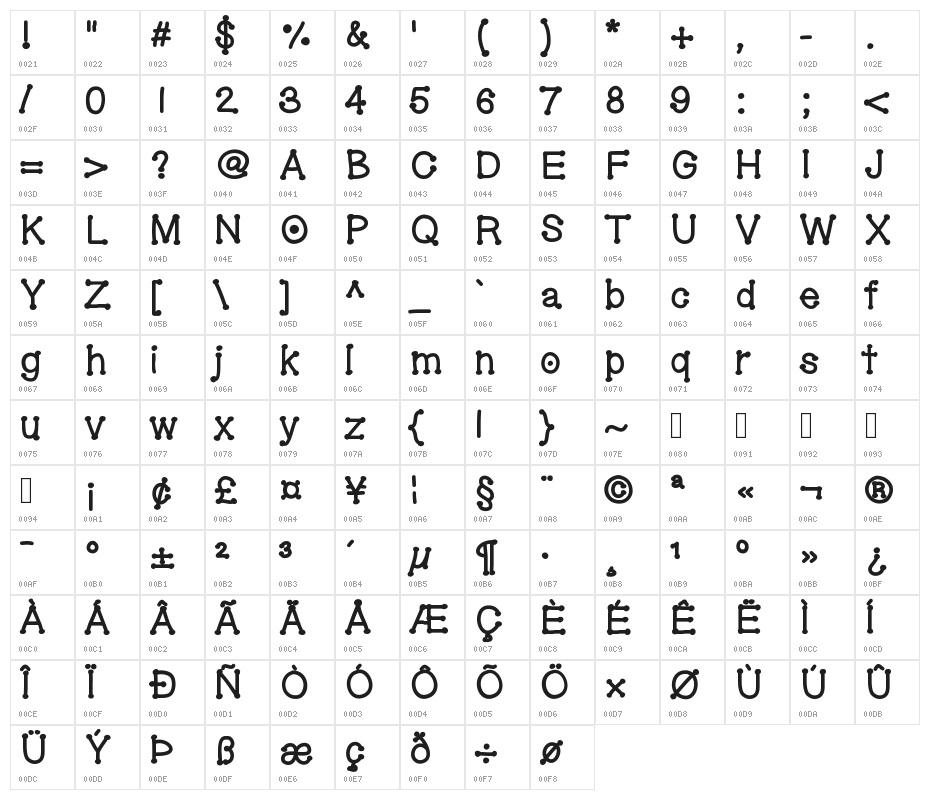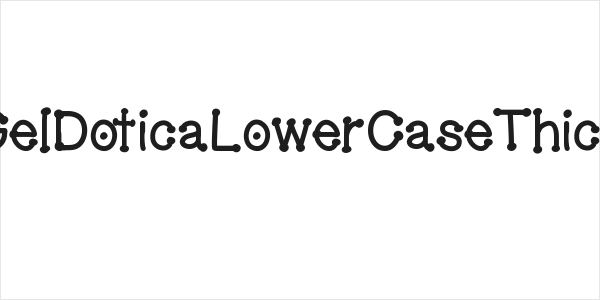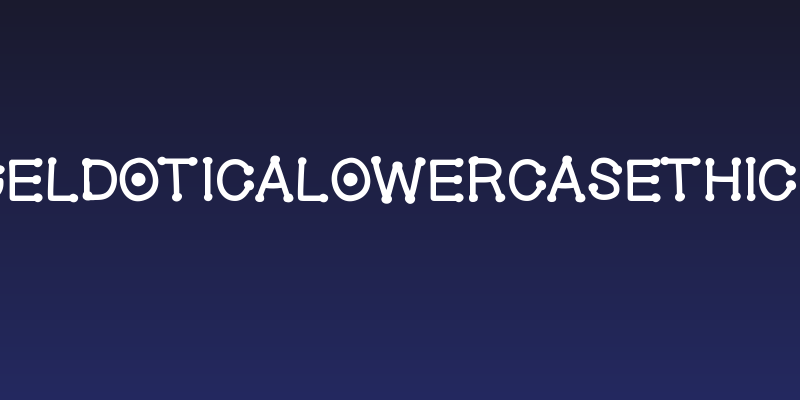
GelDoticaLowerCaseThick Font
GelDoticaLowerCaseThick Description
This font features a playful and bold design with rounded edges and a thick stroke, giving it a bubbly and friendly appearance. The characters are evenly spaced, maintaining a consistent width throughout. The uppercase and lowercase letters are designed with a uniform thickness, contributing to its cohesive look. The numbers and special characters follow the same stylistic approach, ensuring harmony across all glyphs. This font's unique style makes it stand out, with its thick, rounded forms that add a sense of approachability and warmth.
| Proposed Projects | Ideal for children's books, playful branding, posters, and any project requiring a friendly and approachable aesthetic. |